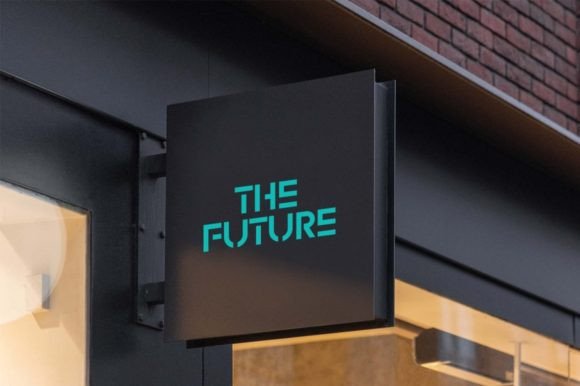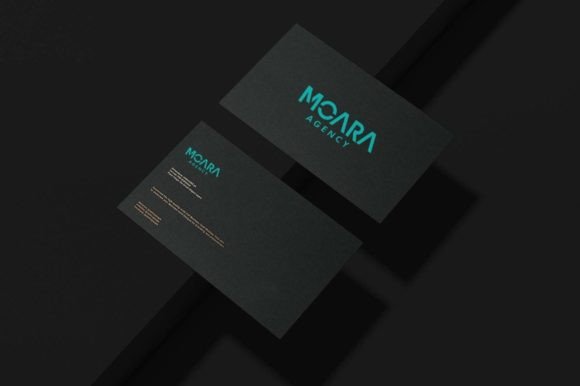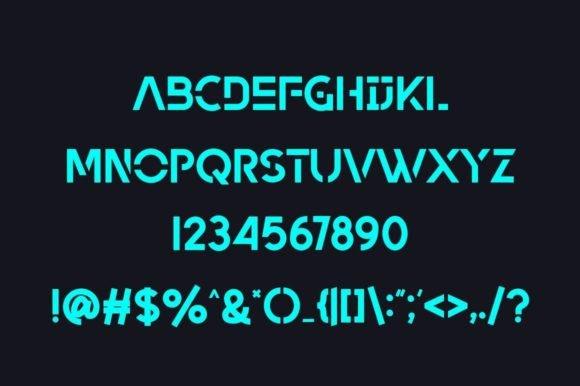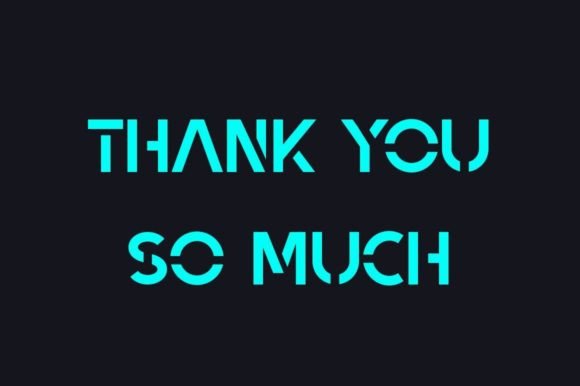
Haksen Font: Elevate Your Designs with a Futuristic Twist
In the realm of typography, fonts play a pivotal role in defining the aesthetic and tone of a design. Among the myriad of fonts available, Haksen Font stands out for its distinctive characteristics and versatility. This article delves into the world of Haksen Font, exploring its unique features, usage possibilities, and why it has become a go-to choice for designers aiming to infuse a futuristic and modern vibe into their creations.
What is Haksen Font?
Haksen Font is a sans-based font that boasts a unique lowercase style, setting it apart from more traditional fonts. Its clean lines and futuristic design elements make it an excellent choice for projects that demand a modern look. The font’s design is characterized by its simplicity and elegance, making it highly legible across various mediums.
Unique Features of Haksen Font
- Unique Lowercase Style: The lowercase letters in Haksen Font are specially crafted to give a fresh and contemporary feel to any text. This uniqueness is a game-changer for designers looking to create logotypes or any textual content that stands out.
- Versatility: One of the key advantages of Haksen Font is its versatility. It can be used across a wide range of design projects, from branding and logotypes to digital interfaces and print materials.
- Modern and Futuristic Aesthetic: The overall design of Haksen Font exudes a sense of modernity and futurism. Its sleek lines and minimalist approach make it perfect for designers aiming to create a forward-thinking visual identity.
Usage Possibilities
The flexibility of Haksen Font is one of its most appealing aspects. Designers can use it for various purposes, especially when looking to create logotypes that require a unique touch. Here are some scenarios where Haksen Font can make a significant impact:
- Logotypes and Branding: The distinctive style of Haksen Font makes it an excellent choice for logotypes. Its uniqueness can help brands stand out in a crowded market.
- Digital Interfaces: For digital interfaces, such as mobile apps or websites, Haksen Font can provide a clean and modern look, enhancing user experience.
- Print Materials: Whether it’s for posters, brochures, or business cards, Haksen Font can add a touch of sophistication and modernity to print materials.
Why Choose Haksen Font?
In a world where design trends are constantly evolving, having a font that can keep up with the times is invaluable. Haksen Font offers several reasons why it’s a preferred choice among designers:
- Ease of Use: Haksen Font is straightforward to integrate into various design projects, making it accessible for designers of all levels.
- Legibility: Despite its futuristic design, Haksen Font maintains high legibility, ensuring that messages are conveyed clearly and effectively.
- Customization: The font’s design allows for easy customization, enabling designers to adapt it to their specific needs.
Haksen Font is a powerful tool in the arsenal of modern designers. Its unique lowercase style, combined with its futuristic and modern aesthetic, makes it an ideal choice for a wide range of design projects. Whether you’re looking to create a standout logotype or simply want to add a touch of modernity to your designs, Haksen Font is a versatile and impactful choice. By incorporating Haksen Font into your design projects, you can ensure that your work not only looks contemporary but also stands out in a crowded design landscape.
In conclusion, Haksen Font represents a fusion of modern design principles and typographic innovation. Its unique features, versatility, and aesthetic appeal make it a valuable asset for designers aiming to create impactful and futuristic designs. As the design world continues to evolve, fonts like Haksen will undoubtedly play a crucial role in shaping visual identities and communicating messages in a clear, yet stylish manner.